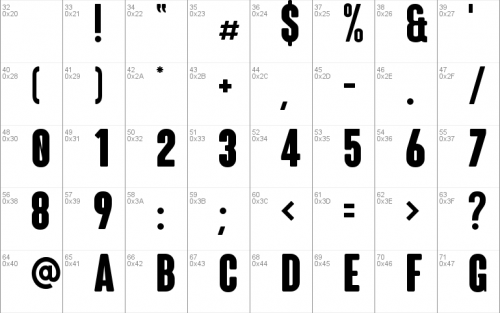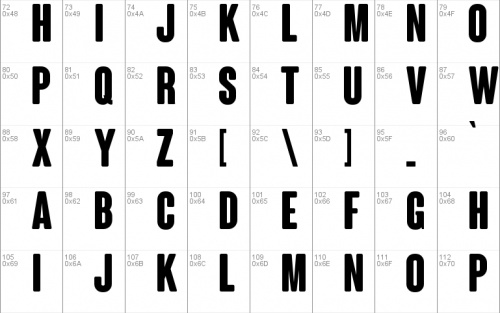
Coluna is a visually powerful, bold, condensed, sans-serif. This font is suitable for headlines, titles, statements, and for commercials. The name is a tribute to Mário Coluna, historical footballer, central midfielder of Benfica Lisbon.
- Designer: Marco Ugolini